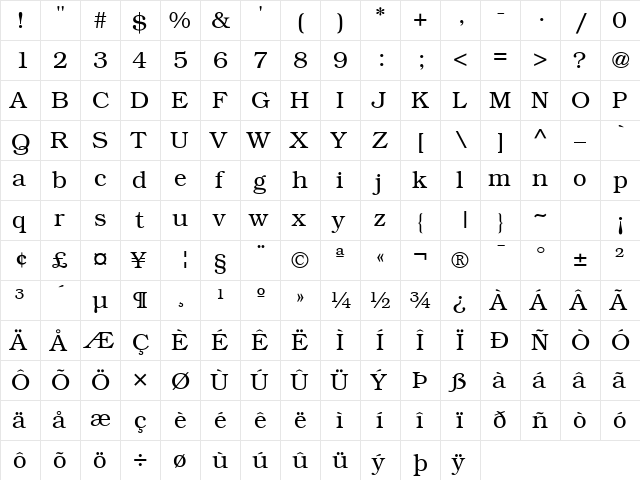
BookwomanSH Light
Design Context for BookwomanSH Typeface
BookwomanSH offers clean, dependable letterforms without strong stylistic allegiance, making it a practical choice for designers who need flexibility. Its slender proportions lend an understated elegance to any composition.
Pro Tip: Use BookwomanSH in both headline and body roles to test its range before committing to a single application.